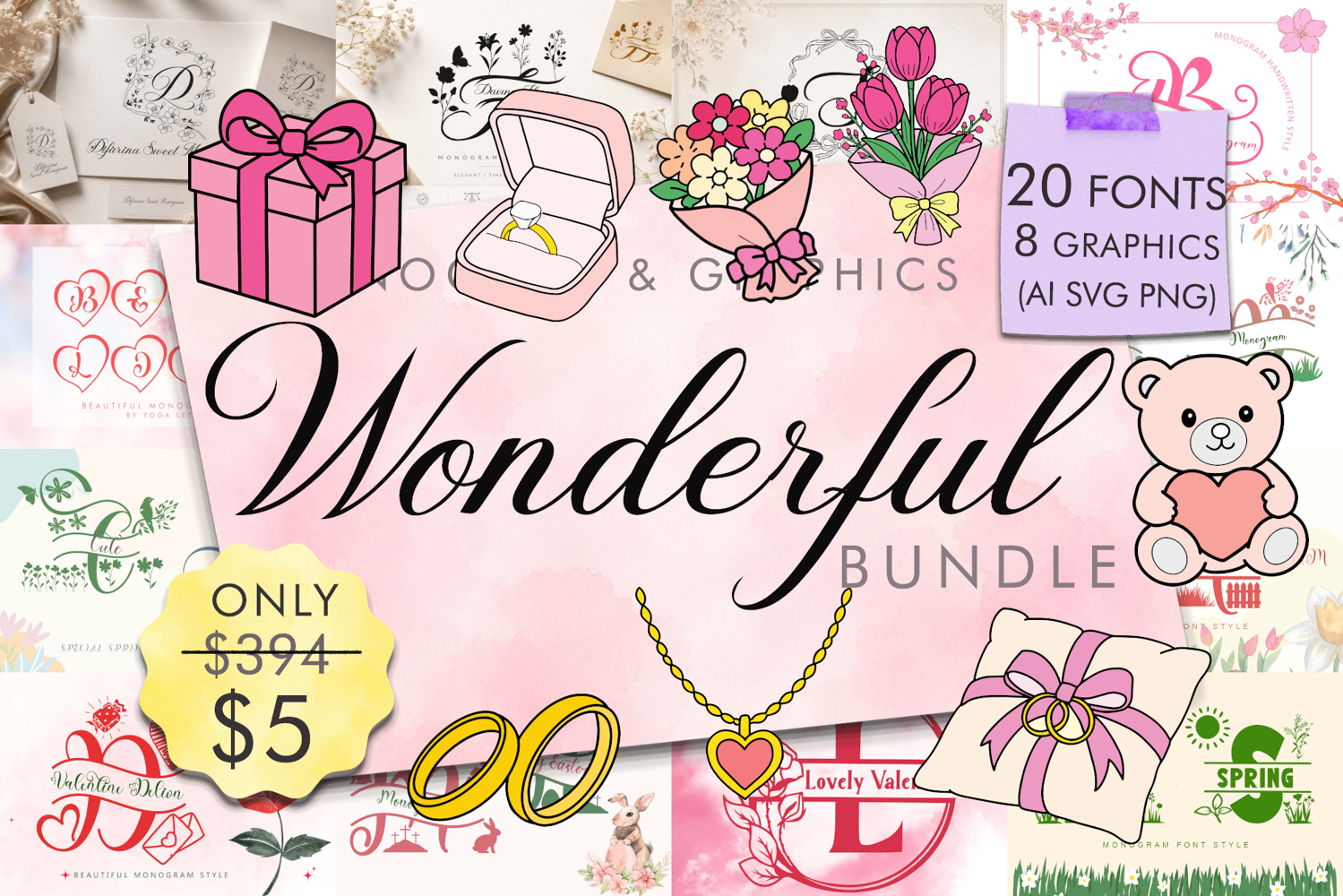
Wonderful Monogram Fonts & Graphics Bundle
Complete font for all your work.
Wonderful Monogram Font & Graphics Bundle
This creative collection bundle features 20 beautiful monogram fonts and 8 hand-drawn wedding graphics in SVG AI PNG formats. Perfect for:
1. Wedding Invitations
2. Branding
3. Logos
4. Product Packaging
5. Social Media Design
6. Greeting Cards
7. Craft Projects.
This versatile bundle combines stylish typography with captivating floral illustrations to help you create beautiful and professional designs with ease.
Here are the contents of these 20 beautiful monogram fonts: